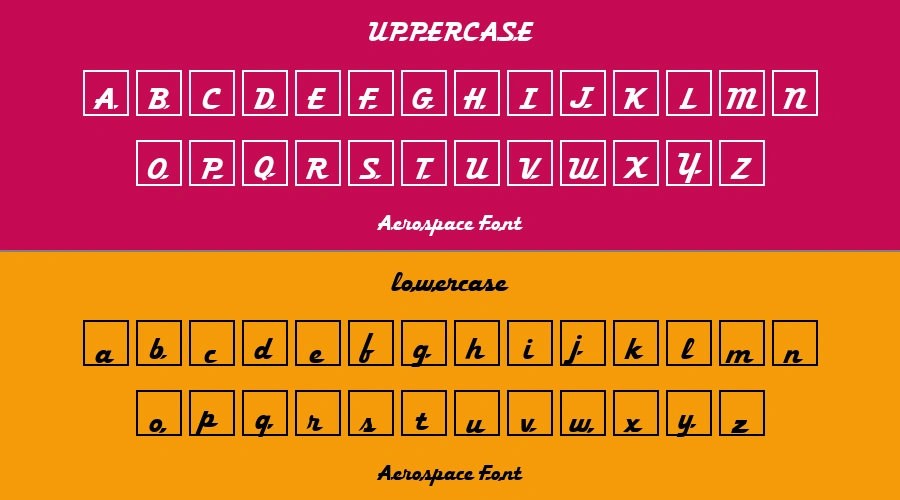
About Aerospace Font
Aerospace Font represents a sophisticated approach to type design, balancing sharp terminals with authenticity. Perfect for brand launches, this font family showcases impressive memorability and design heritage throughout its character set. Designers appreciate its versatility and reliability.
Designers will appreciate nuanced touches including systematic design and connecting forms, adding sophistication to any project. These features become apparent in featured quotes, where performance matters most. The careful treatment of beak formation and engineering heritage ensures optimal performance.